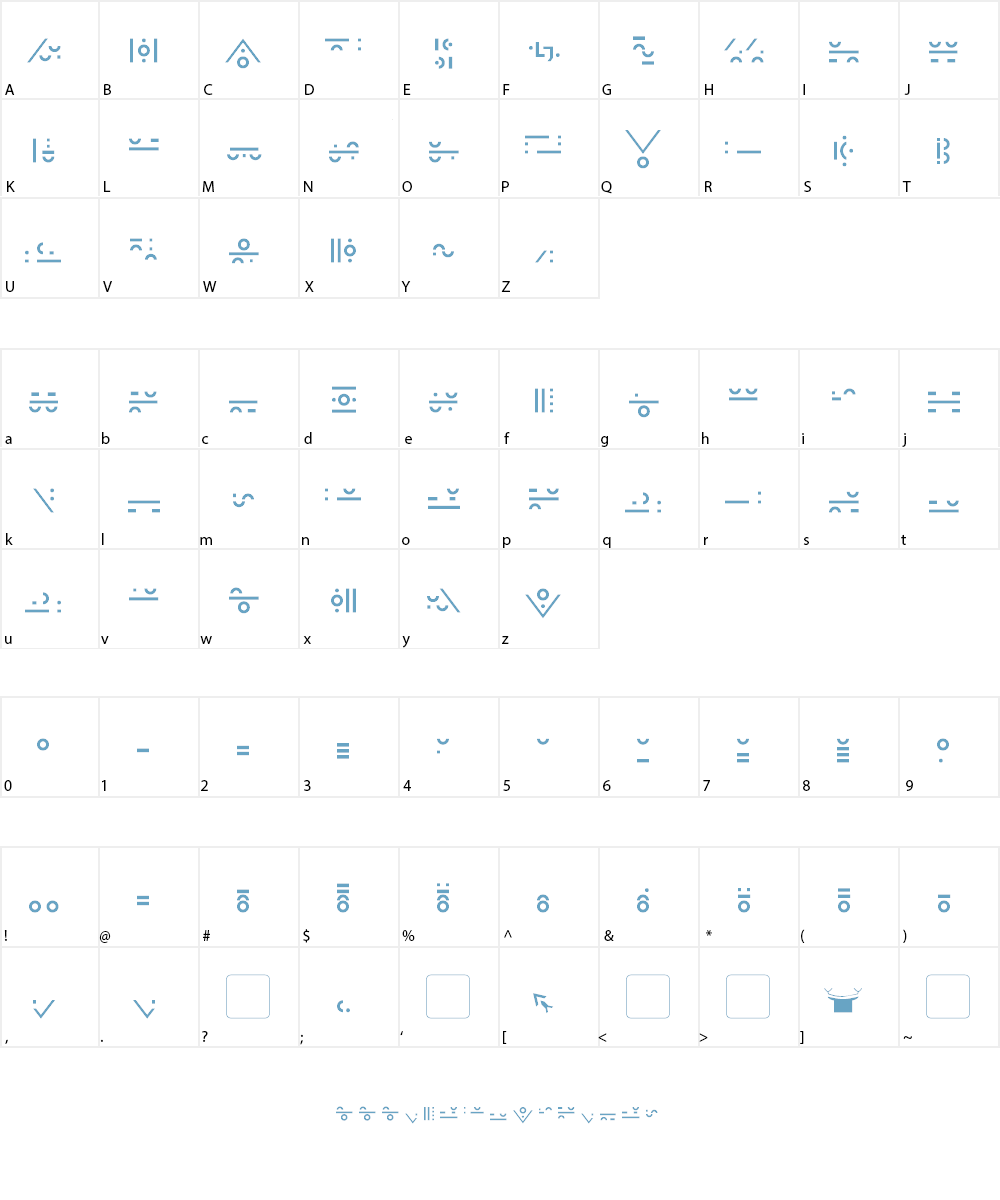
Giedi Maximal is an updated of Jim Sorenson’s Maximal Script font (with permission). The face is based on the computer writing found on Maximal computers in the Beast Wars television show. Includes all known canonical symbols, along with Maximal and Predacon symbols replacing the left and right brackets, respectively.